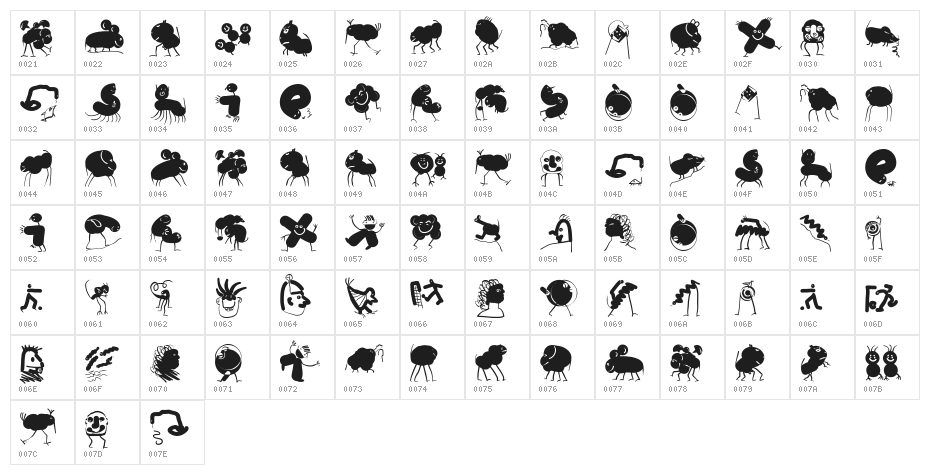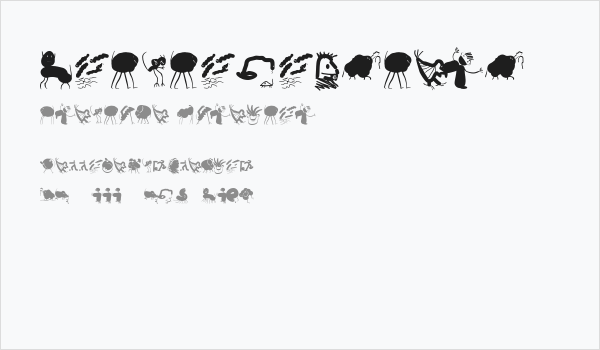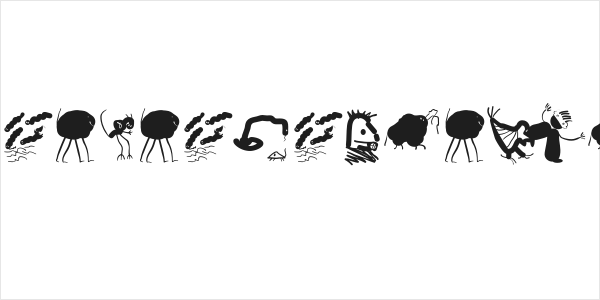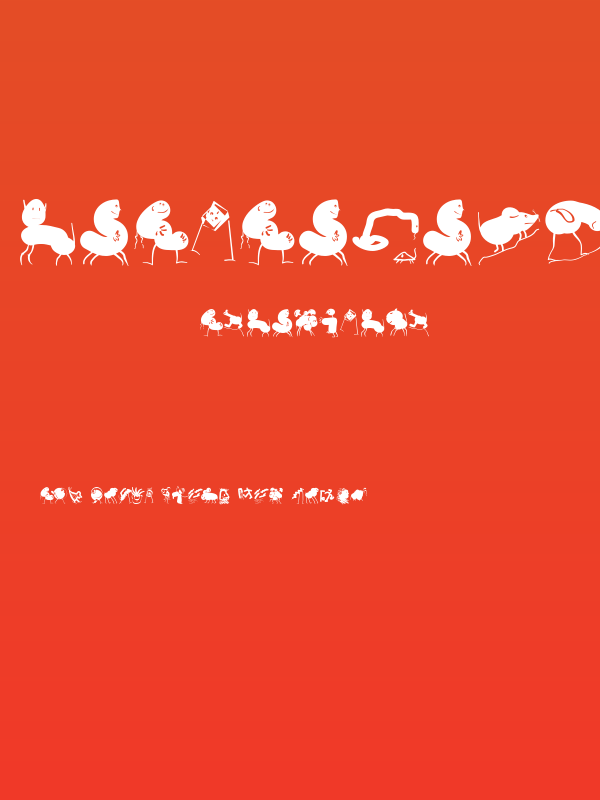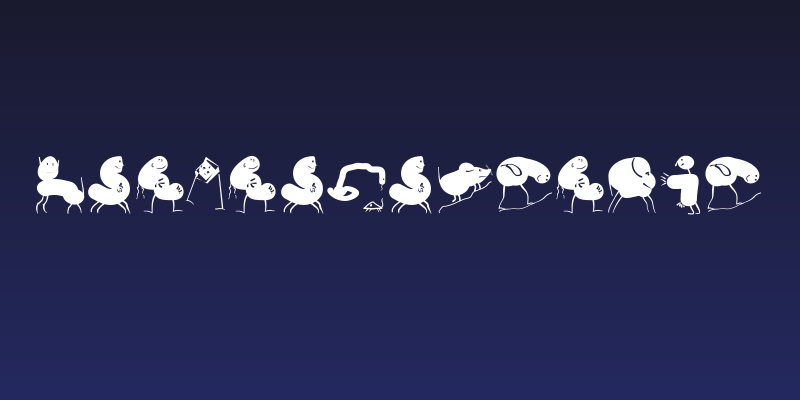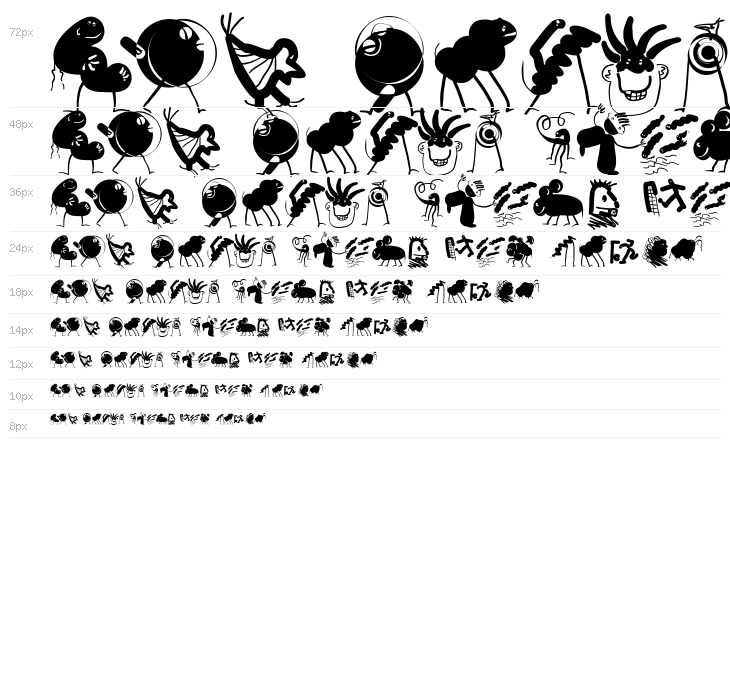
PotatoMonsters Font
PotatoMonsters Description
This font is a playful and whimsical collection of characters, each designed with a unique and quirky personality. The characters resemble cartoonish creatures with exaggerated features, such as large eyes, expressive limbs, and imaginative shapes. The overall design is highly decorative and artistic, making it more of an illustrative set than a traditional font. Each character is distinct, with a variety of forms that include both abstract and recognizable elements, creating a lively and dynamic visual experience.
| Use Case | Logos, Posters, Creative Projects |
| Proposed Projects | Ideal for children's books, playful branding, creative posters, and any project requiring a fun and imaginative touch. |